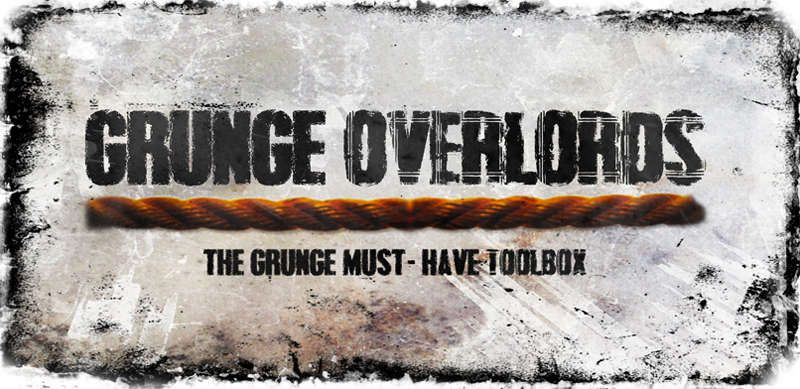
Grunge Overlords by Guilhem Greco is a free eroded display font with massive, compressed capitals, a dark industrial silhouette, and surface damage that recalls years of hard mechanical use. Wide strokes and tight internal spaces make the lettering feel almost solid, with chipped edges, dry patches, and fine horizontal streaks running repeatedly through the broad black shapes.
Concert posters are the clearest use for its dense, confrontational lettering. Album covers, streetwear graphics, and combat-game branding share the same appetite for scraped, forceful type, but live music promotion remains its most convincing home because the texture resembles heavily worked screen printing.